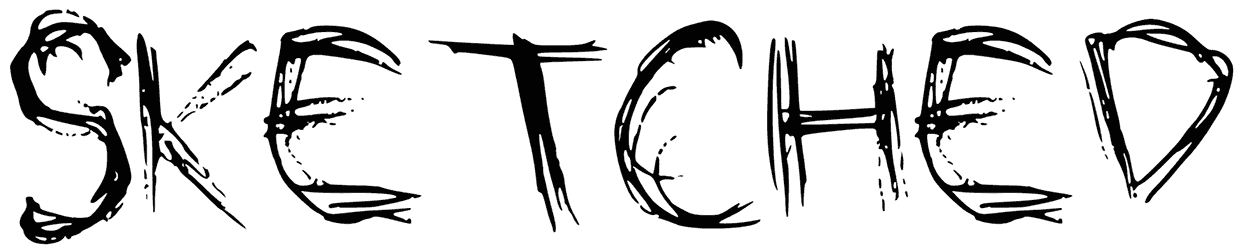
Sketched Font
Sketched font is for those who like to use vintage and sketch font themes in their work. This script font with irregular lines is also recommended for basic building designs. In addition, you can use it in the design of…
Sketched font is for those who like to use vintage and sketch font themes in their work. This script font with irregular lines is also recommended for basic building designs.
In addition, you can use it in the design of stationery such as pens, pencils, and markers; we assure you this simple design will have a unique charm, and the customer will be attracted to it.